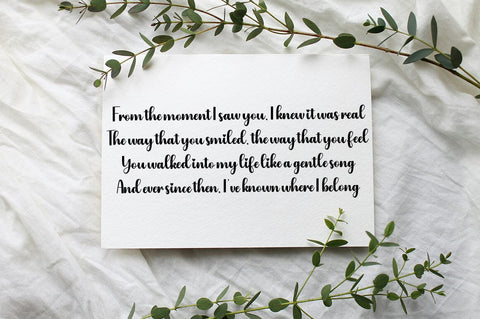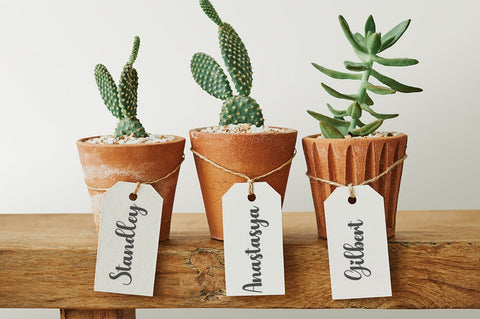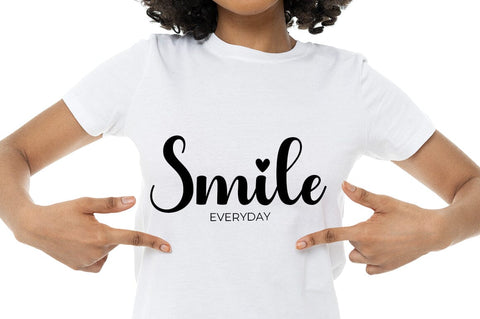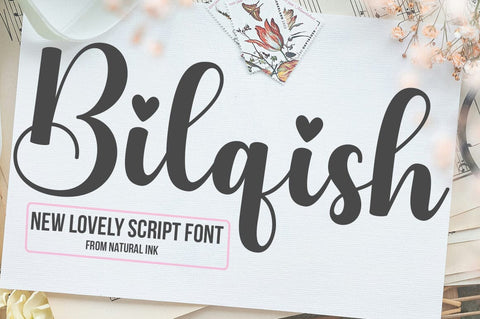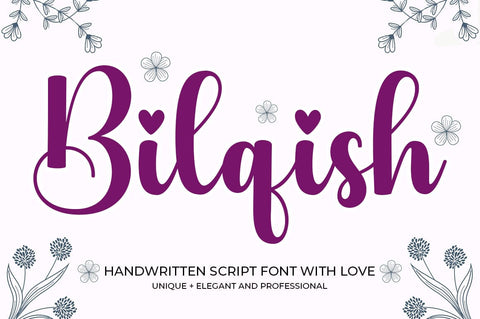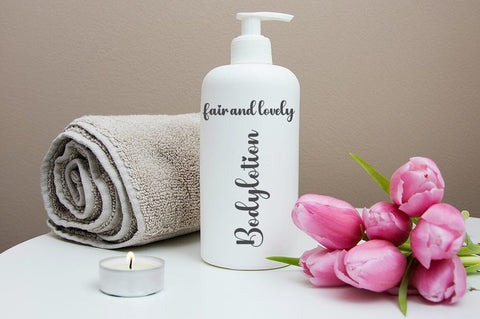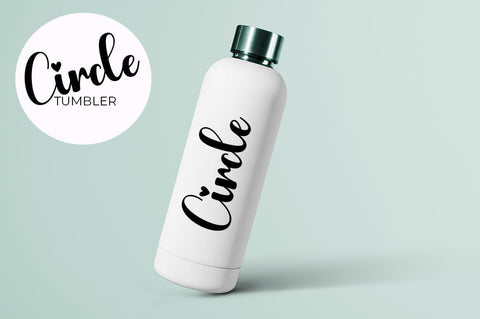
Bilqish
ntroducing Bilqish Script - a fresh take on contemporary calligraphy with an included Regular style. Its casual elegance is accentuated by a breathtaking swash, creating striking beauty in every character. Bilqish Script is versatile by design, effortlessly elevating logos, product packaging, and even wedding invitations. It's the perfect flourish for branding endeavors, eye-catching headlines, evocative signage, and chic labels. This script can also gracefully adorn signatures, transform book covers, empower posters, and breathe playful personality into quotes. Whatever your creative vision, Bilqish Script is made to bring it to life beautifully.